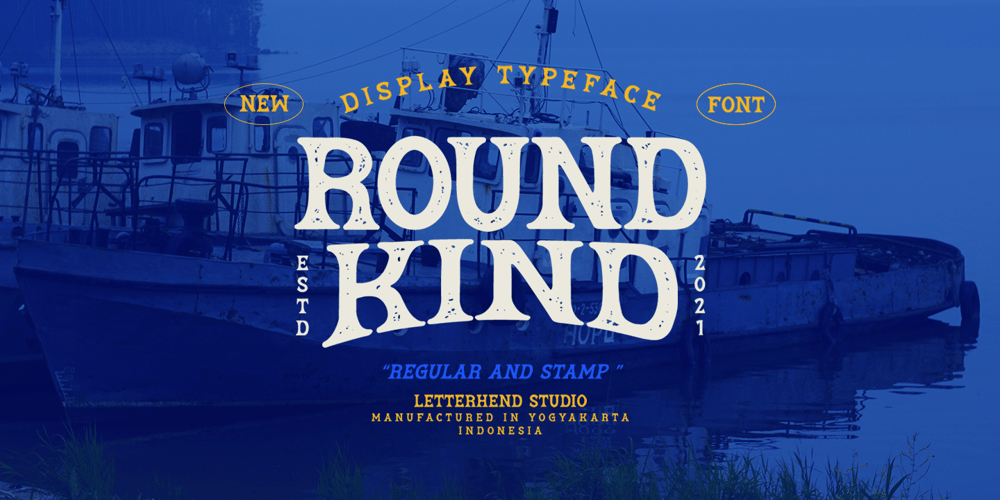
Roundkind Font Family was designed by Hendry Juanda and published by Letterhend. Roundkind contains 2 styles and family package options. Round Kind is a vintage display typeface with the touch of nostalgic feel yet still looks luxury in a modern design concept. This typeface has unique looks and strong character with illustration pack as bonus. This font perfectly made to be applied especially in logo, and the other various formal forms such as invitations, labels, magazines, books, greeting / wedding cards, packaging, fashion, make up, stationery, novels, labels or any type of advertising purpose.Features : Uppercase & lowercase (alternates) Numbers and punctuation Stylistic alternates multilingual PUA encoded Illustration pack in vector We highly recommend using a program that supports OpenType features and Glyphs panels like many of Adobe apps and Corel Draw, so you can see and access all Glyph variations.